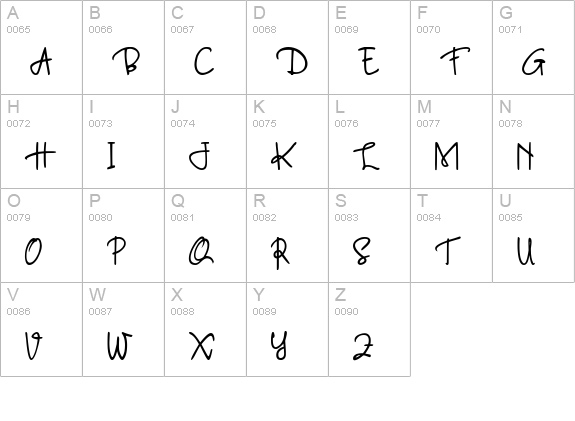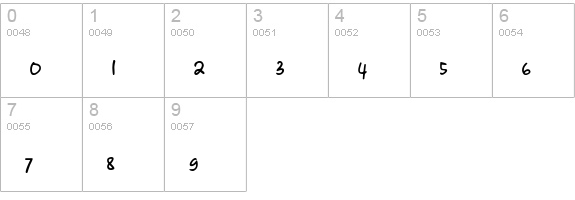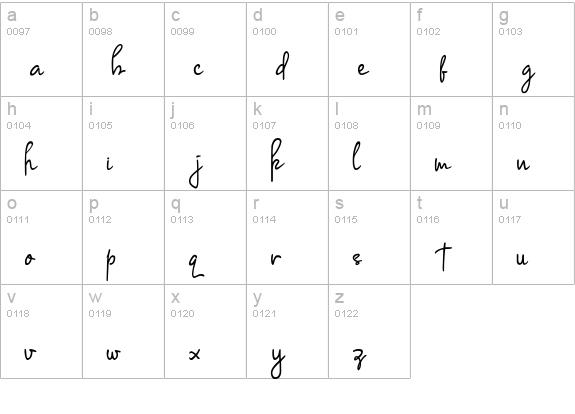
JAYAKARTA Font Details
JAYAKARTA font is a stylish and modern typeface that exudes elegance and sophistication. Its sleek lines and unique design make it perfect for a wide range of design projects, from branding to editorial design. With its clean and distinct letterforms, JAYAKARTA font is sure to make a statement and elevate any design it is used in.